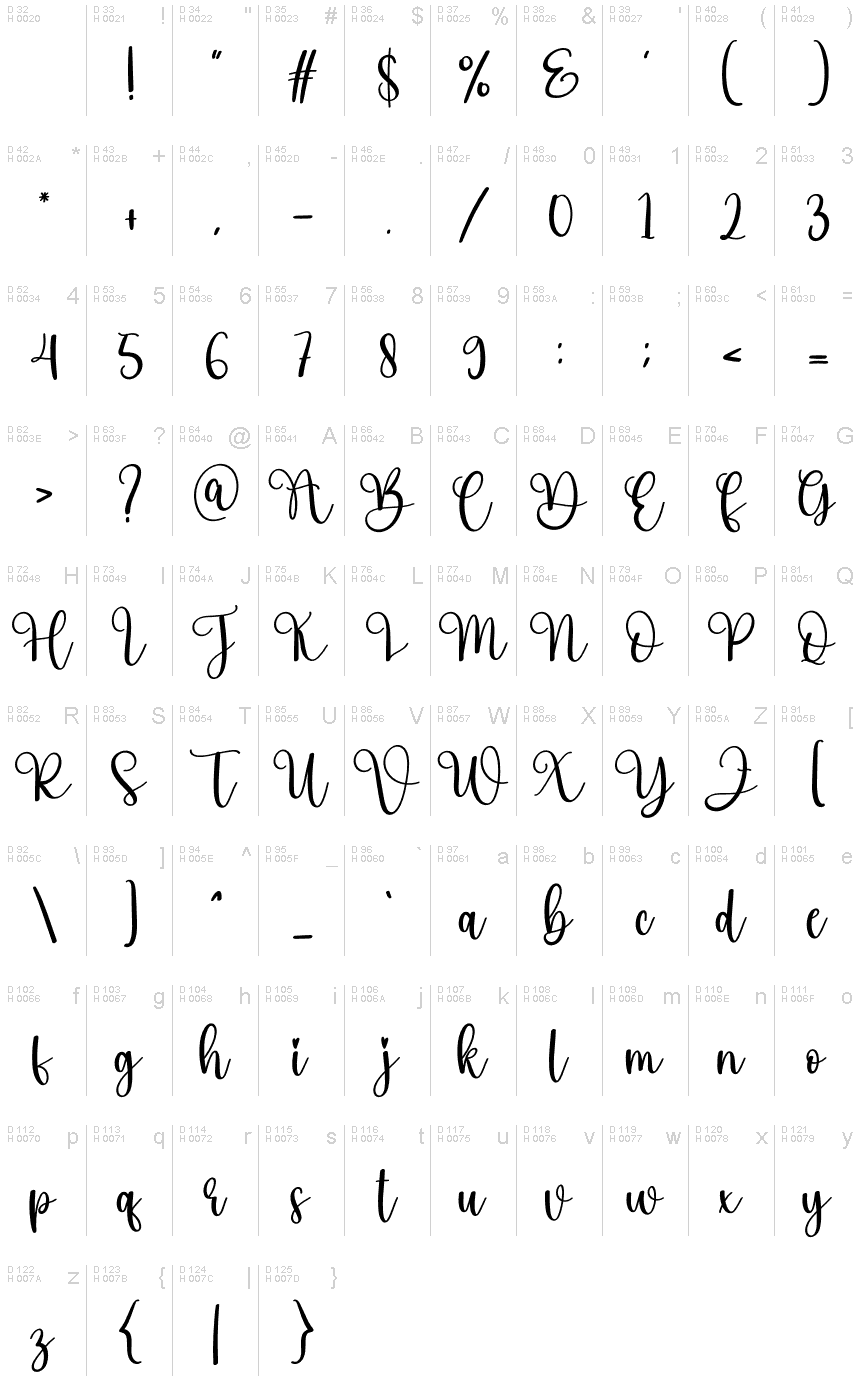
Bakery
Bakery, a charming handwritten font designed by Scratchones, adds a delightful calligraphic touch to your projects. With its semi-light weight, this font exudes elegance and sophistication while maintaining a playful vibe.
Perfect for creating eye-catching logos and branding materials, Bakery is also well-suited for wedding invitations, greeting cards, and food-related projects. Its unique style adds a personal and artistic flair to menus, recipe books, and bakery shop signage. Whether you're crafting a sweet treat blog or designing packaging for artisanal goods, Bakery will infuse your creations with warmth and creativity.
The latest style letters are perfect for wall displays, wedding invitations, social media post logos, advertisements, product packaging, product designs, labels, photography, watermarks, invitations, stationery, and any project that requires taste handwriting.
Perfect for creating eye-catching logos and branding materials, Bakery is also well-suited for wedding invitations, greeting cards, and food-related projects. Its unique style adds a personal and artistic flair to menus, recipe books, and bakery shop signage. Whether you're crafting a sweet treat blog or designing packaging for artisanal goods, Bakery will infuse your creations with warmth and creativity.
The latest style letters are perfect for wall displays, wedding invitations, social media post logos, advertisements, product packaging, product designs, labels, photography, watermarks, invitations, stationery, and any project that requires taste handwriting.